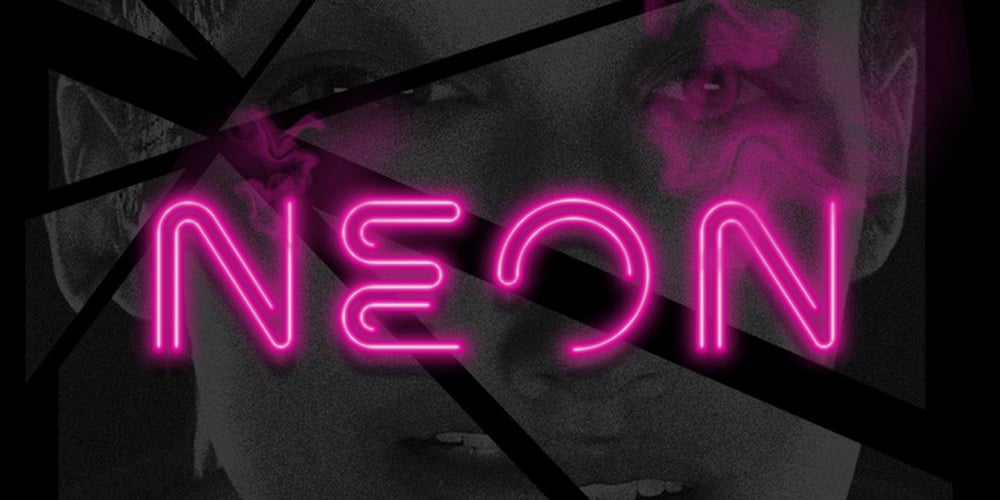
Neon Font Family was designed by published by Superfried. Neon contains 1 styles and family package options. Neon is an experimental, retro display typeface designed by Superfried. Neon features two styles which can be toggled via shift. As the name suggests styling for the typeface started with classic neon signage, but quickly took a new direction of its own leading to a very distinct and versatile display face. Neon has been featured in Computer Arts magazine.